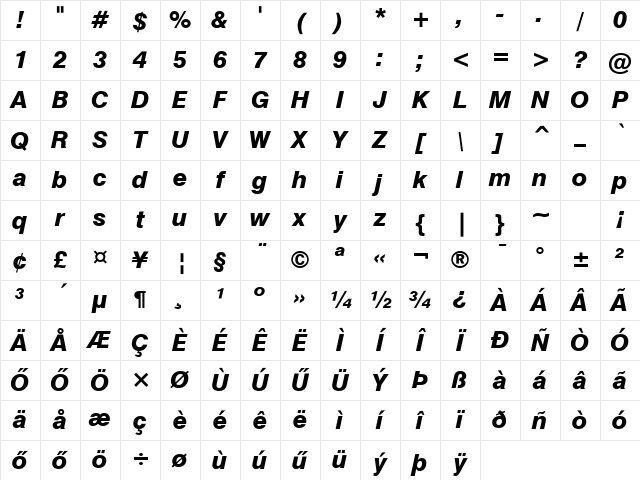
Swiss-721Heavy-HU is a composed and adaptable typeface that performs quietly and consistently across a wide range of design contexts. The slanted form adds forward momentum and visual energy.
Pro Tip: Use Swiss-721Heavy-HU for emphasis, pull quotes, and subheadings where its slanted energy can add rhythm to the layout.